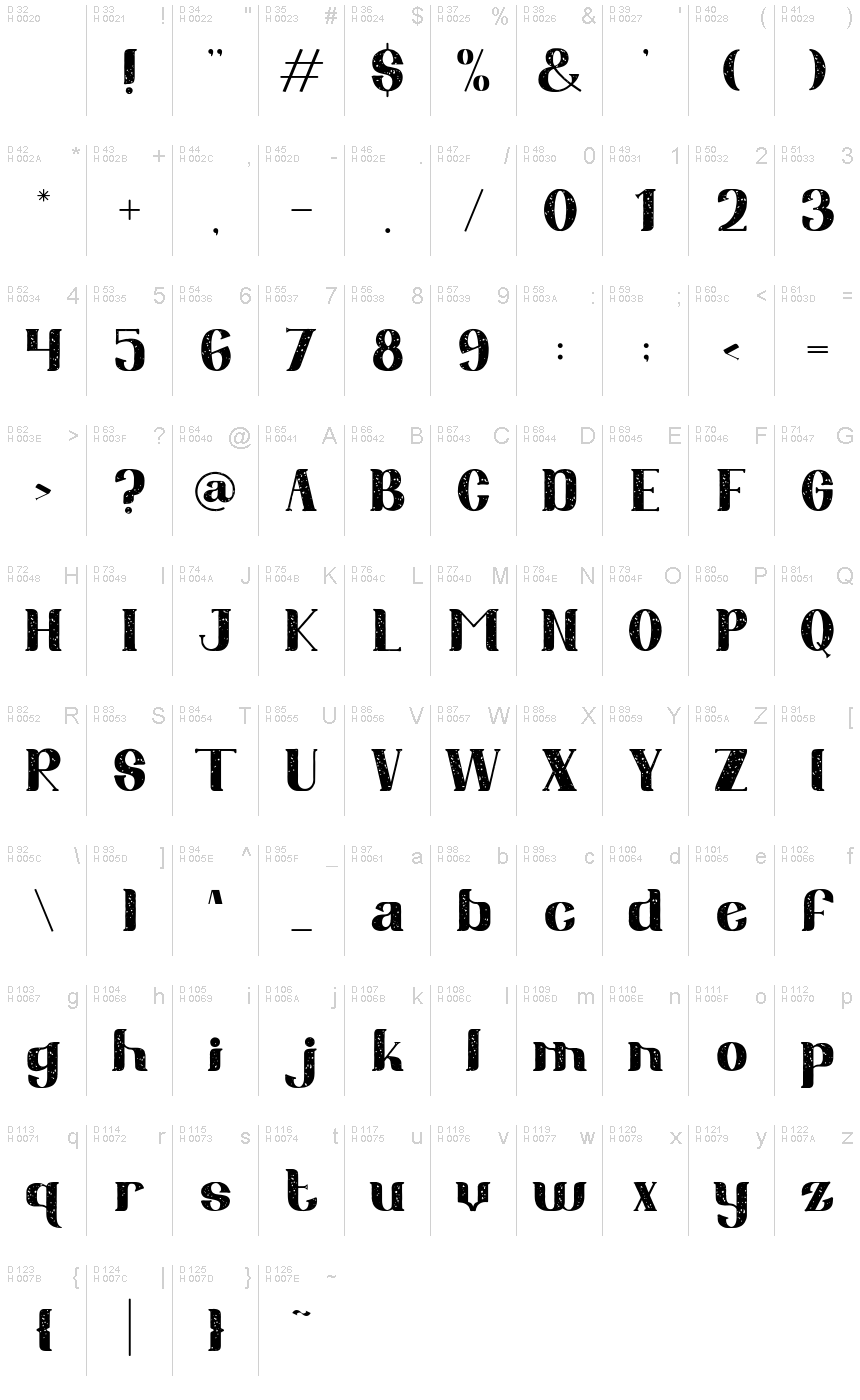
Sixty Niners Texture
Sixty Niners Texture, crafted by PutraCetol Studio, is a display font that exudes a distinct retro charm with an eroded aesthetic. Its bold and weathered design captures the essence of vintage appeal, making it perfect for projects that seek to evoke nostalgia or a rugged, timeless feel. The texture within each letter adds depth and character, setting it apart from more conventional typefaces.
Ideal for headlines, posters, branding projects, and any creative endeavor requiring a touch of retro flair, Sixty Niners Texture brings an authentic and eye-catching element to your designs. Whether you’re aiming for a vintage look or simply want to make a bold statement, this font offers versatility and style in abundance.